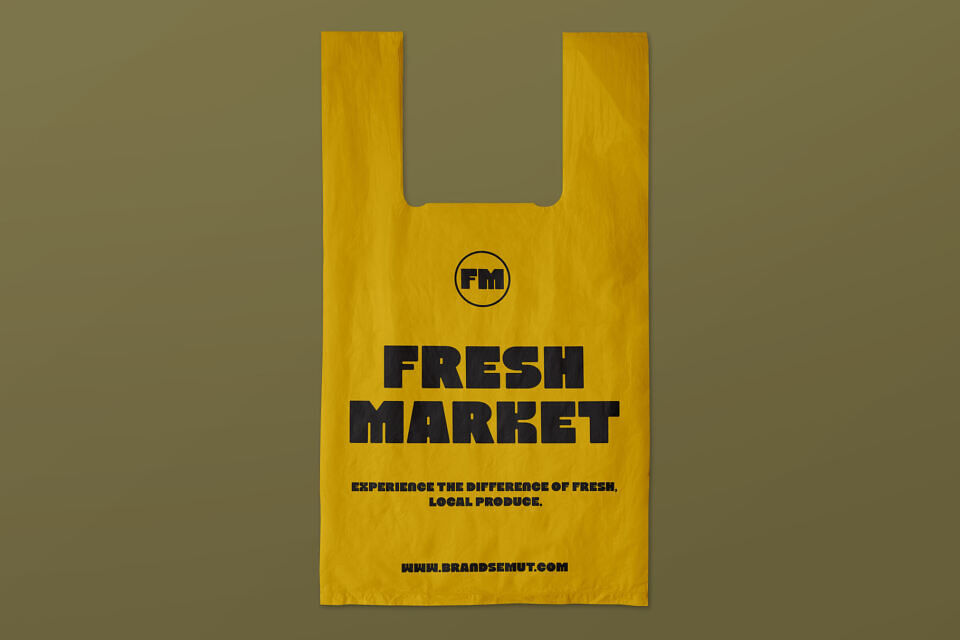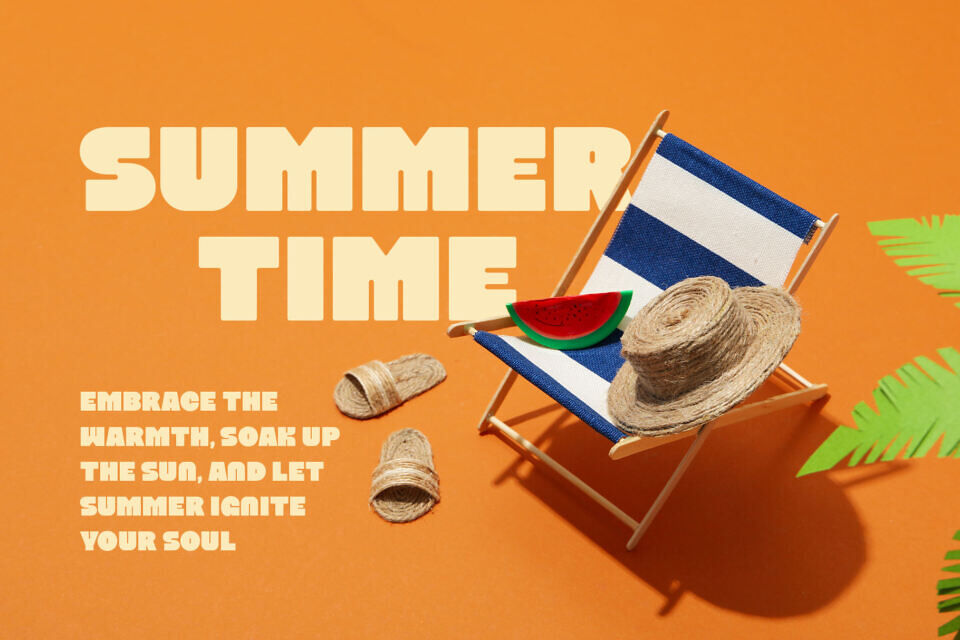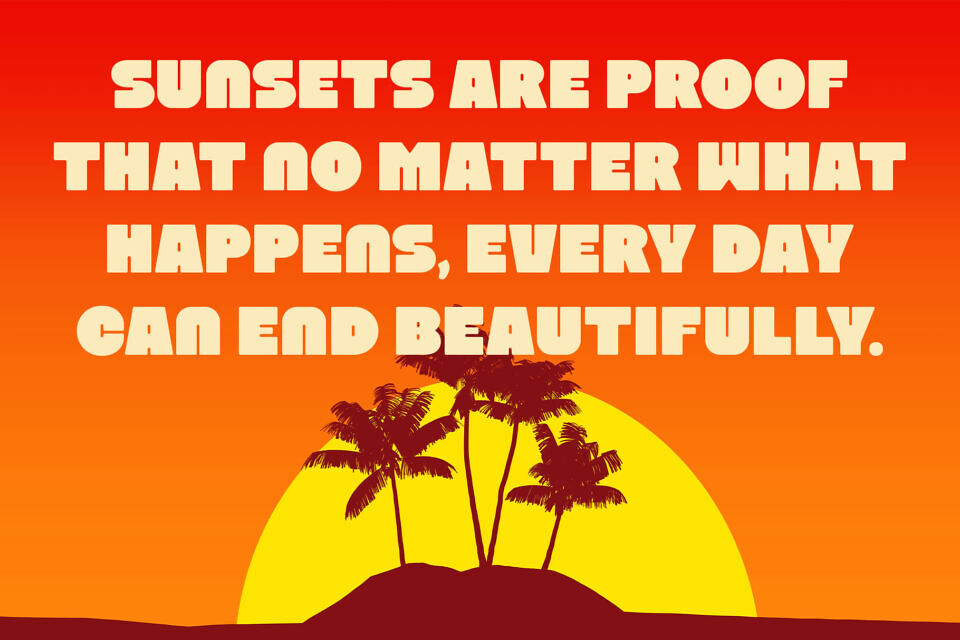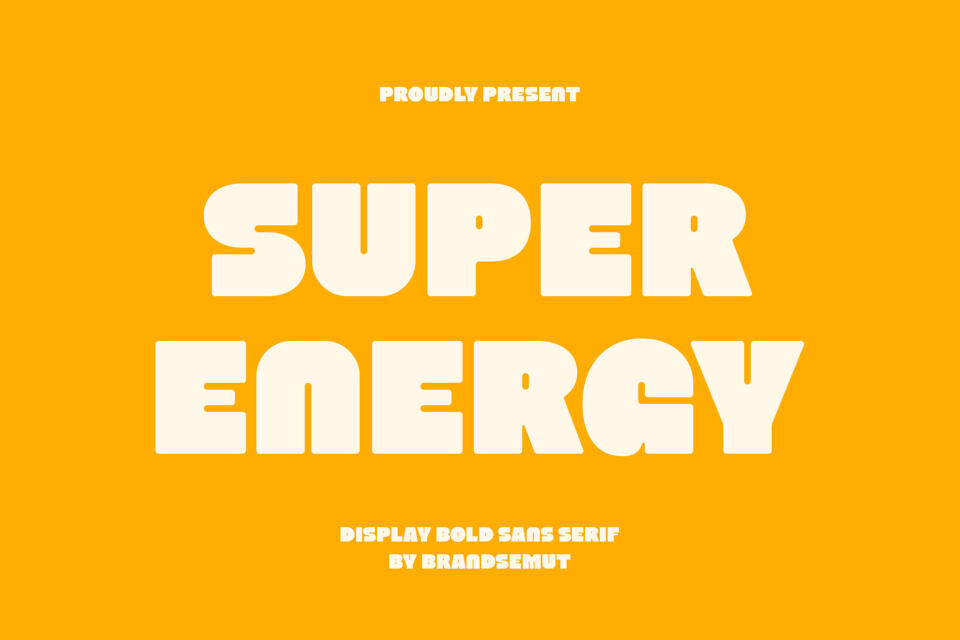
Super Energy Font
Introducing Super Energy Bold Display Sans. Super Energy is a modern and simple font, best used as a display for headings, logos, branding, magazines, product packaging and invitations. Super Energy come with clean lines and smooth curves give any project an extra touch of class.